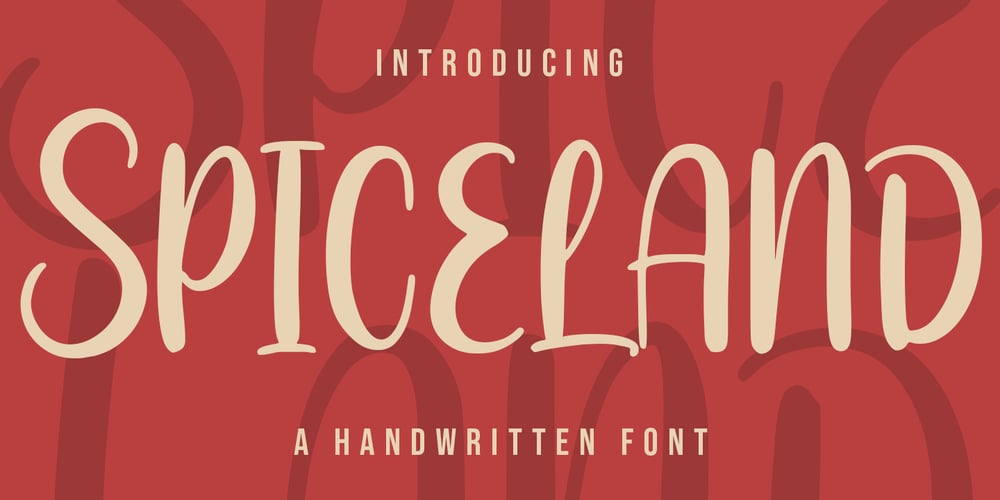
Spiceland Font Family was designed by Gilang Maulana and published by Maulana Creative. Spiceland contains 1 styles and family package options. Spiceland is a fancy handwritten script font. With bold contrast stroke, fun character with a bit of ligatures and alternates. To give you an extra creative work. Spiceland font support multilingual more than 100+ language. This font is good for logo design, Social media, Movie Titles, Books Titles, a short text even a long text letter and good for your secondary text font with sans or serif. Make a stunning work with Spiceland. Cheers, Maulana Creative